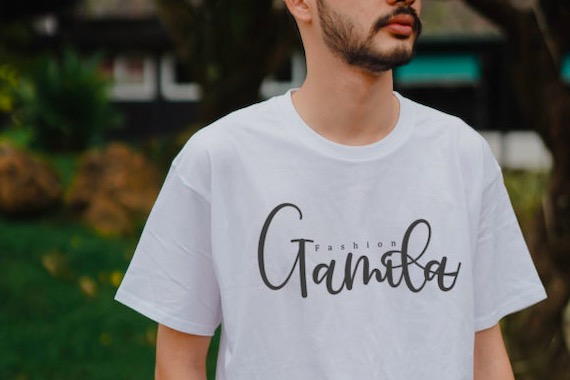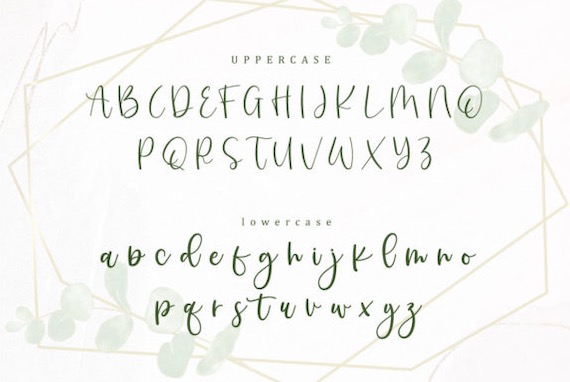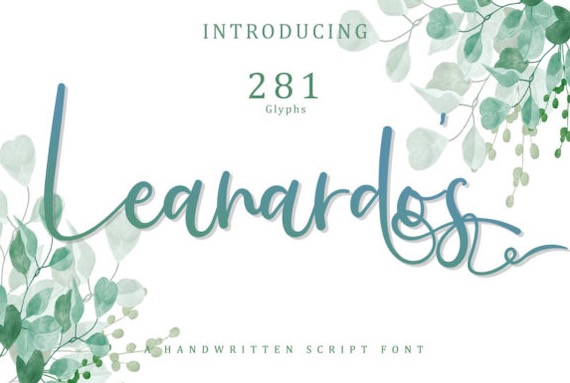
Introducing Leanardos Font. It’s an elegant, flowing, and delicate handwritten script font that was created and shared by Arief Indra Pratama. Use this script font for wall displays, wedding invitations, social media post logos, advertisements, product packaging, product designs, labels, photography, watermarks, invitations, stationery, and any project that requires impressive typography.
Leanardos Handwritten Script Font